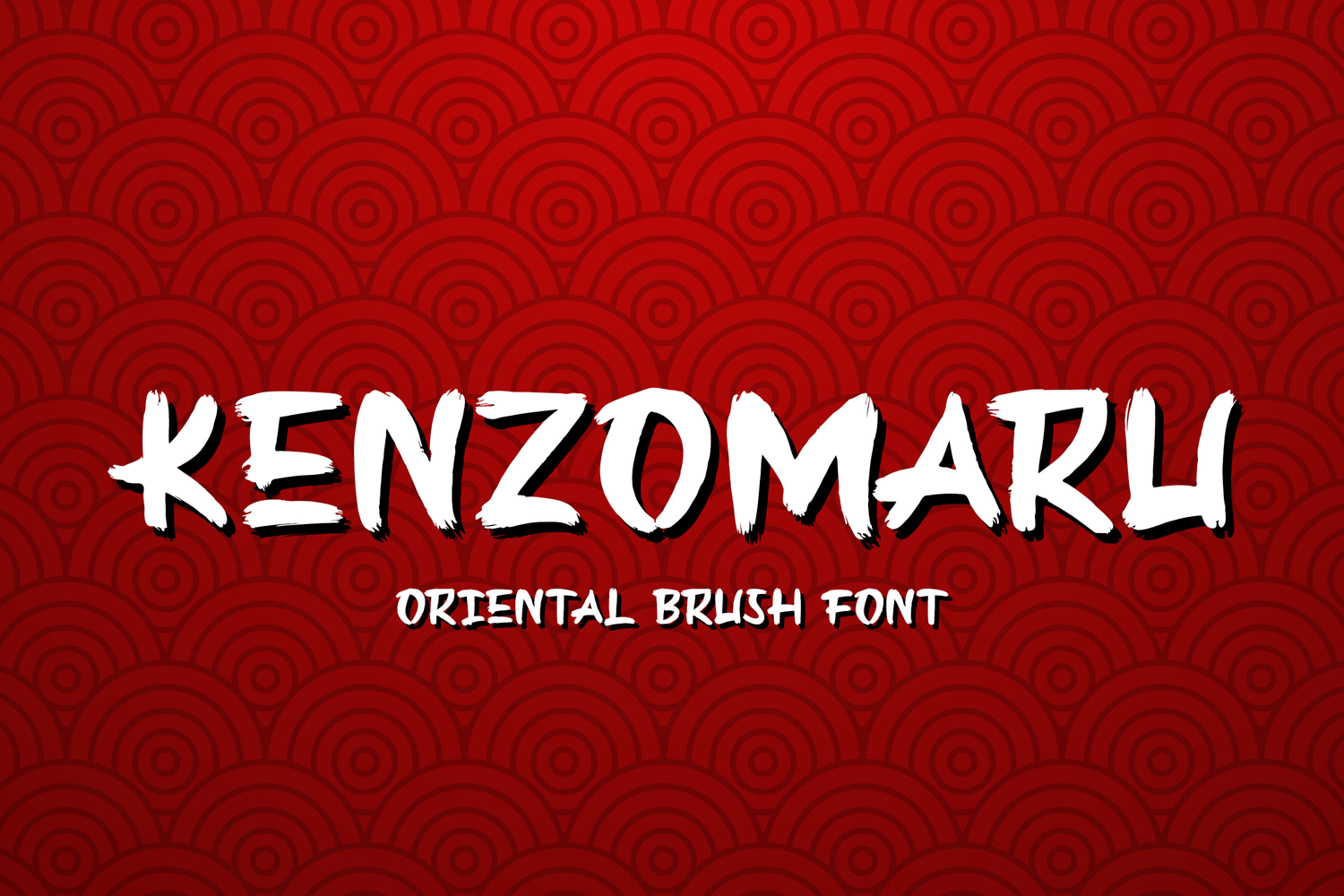
Kenzomaru - Oriental Brush Font
Kenzomaru is a Oriental Brush font that will make your designs look modern, unique and fun. It’s perfect for labels, quotes, posters, DIY projects, branding, packaging, greeting cards, websites, photography overlays, signs, window art, scrapbooking, tags and so much more!.